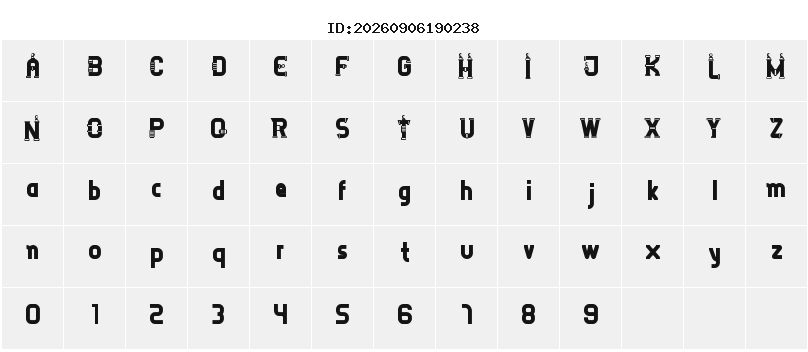
TESLAFONT Preview
• Font Name: TESLAFONT
• Full Font Name: TESLAFONT
About TESLAFONT.ttf
TESLAFONT.ttf is a modern, elegant sans-serif font designed for ultimate readability and visual harmony. Perfect for branding, headlines, web design, and print materials.